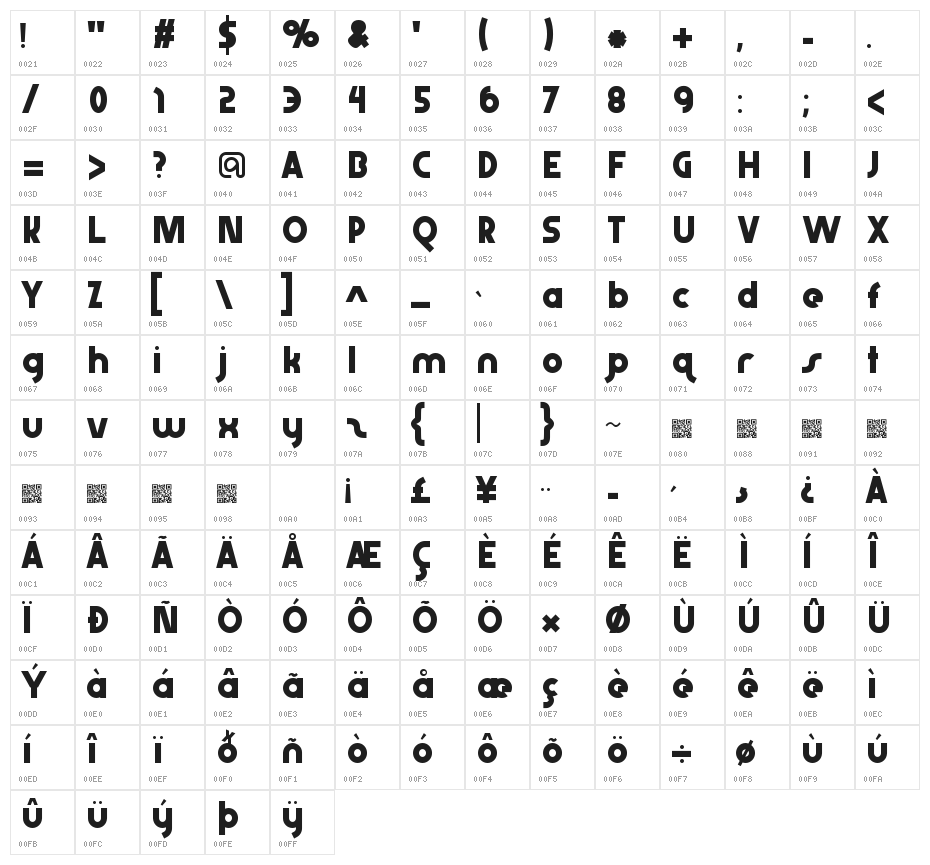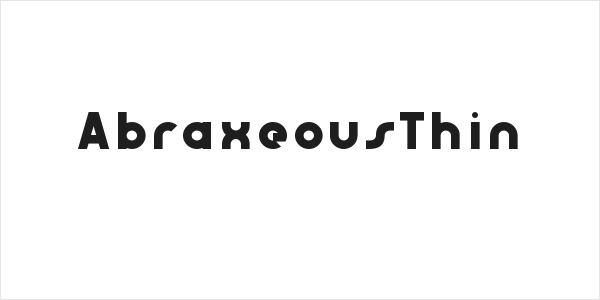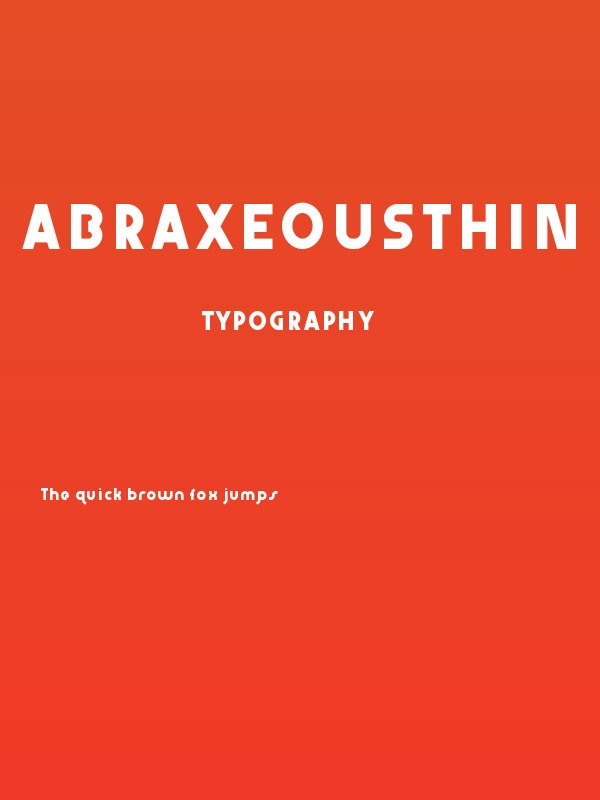
AbraxeousThin Font
AbraxeousThin Description
This font features a bold and geometric style with a strong presence. The characters are crafted with sharp angles and clean lines, giving it a modern and assertive look. The uppercase letters are particularly striking, with a uniform height and width that create a cohesive appearance. The lowercase letters maintain the geometric theme, with rounded elements that add a touch of softness to the overall design. Numbers and special characters are designed to match the boldness and clarity of the alphabet, ensuring consistency across all text elements. This font is ideal for making a statement in any design project.
| Proposed Projects | Ideal for branding, headlines, posters, and modern graphic design projects. |